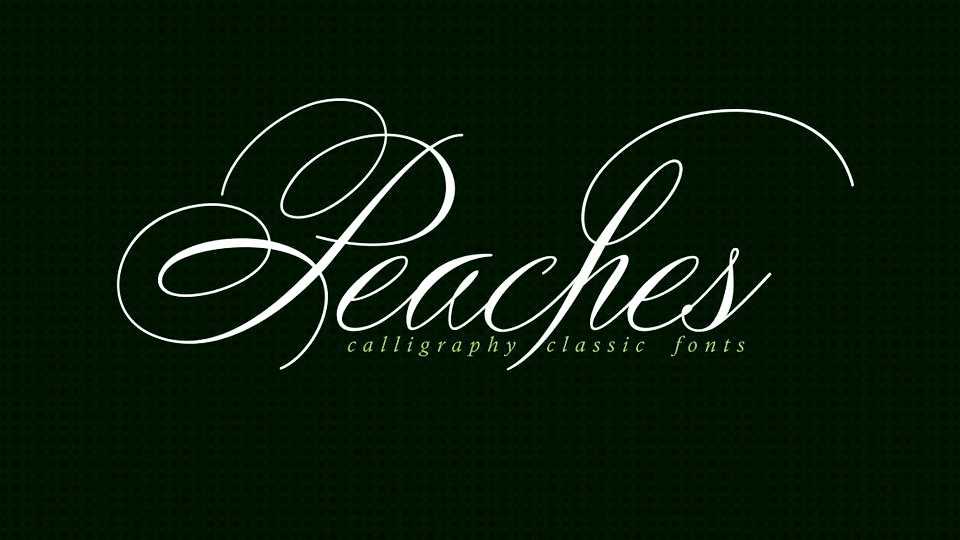
Download Peaches font, a classic calligraphy script to make your rich look elegant, sweet and perfect. With this style, Peaches font will be appropriate for logo, wedding design, branding and more.